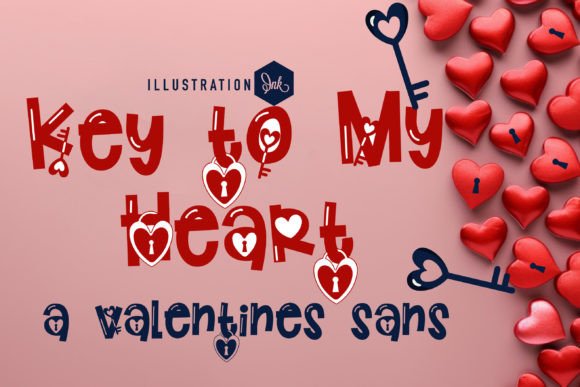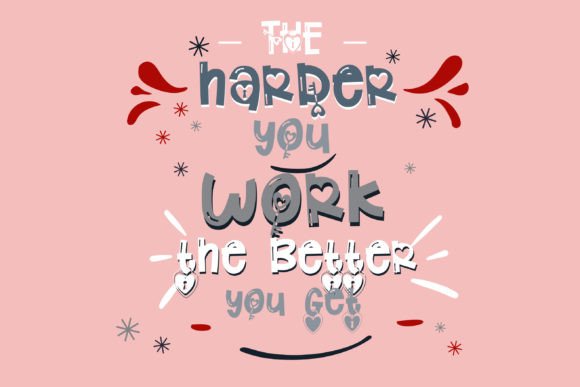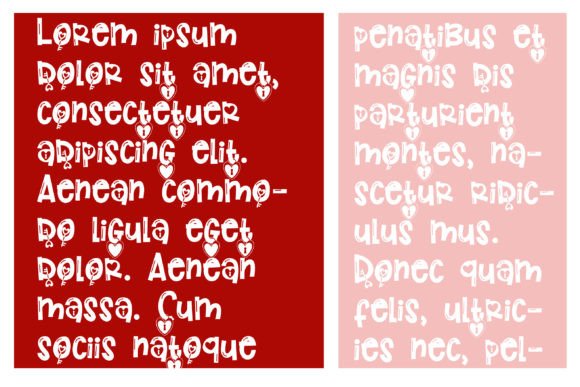
Key to My Heart Font
About the Key to My Heart Font
The Key to My Heart Font is here to transform your projects with its distinctive character and style. This hand-crafted font is a whimsy sans serif with keys, hearts, and locks. No matter the topic, this font will be an incredible asset to your fonts’ library, as it has the potential to elevate any creation.
Key to My Heart’s playful design is ideal for projects requiring a touch of whimsy and romance. It works exceptionally well in headlines, short slogans, branding for boutiques, or playful packaging designs. Avoid using it for large blocks of body text or UI elements; the decorative nature of the characters compromises readability in extended use.
Its inherent charm pairs well with clean sans-serif fonts like Open Sans for a balanced contrast, or a more elegant serif like Lora for a sophisticated feel. Consider a simple script font for added flourish in smaller applications, but keep it minimal to prevent visual clutter.
The font’s overall personality is cheerful and romantic, conveying feelings of love, affection, and lightheartedness. It’s best suited for brands focusing on themes of relationships, celebrations, or artisanal goods.
Key to My Heart Font Example